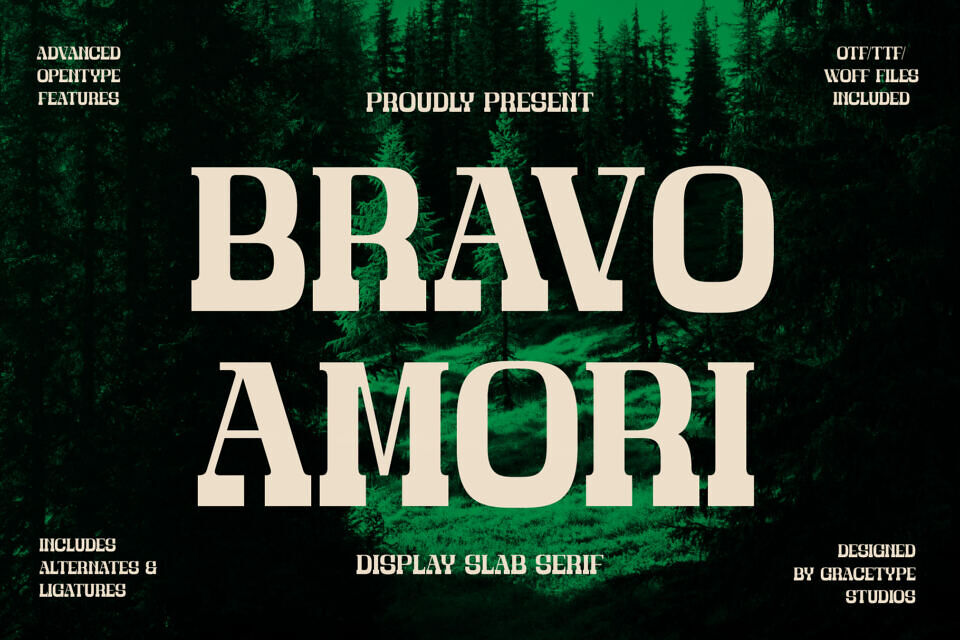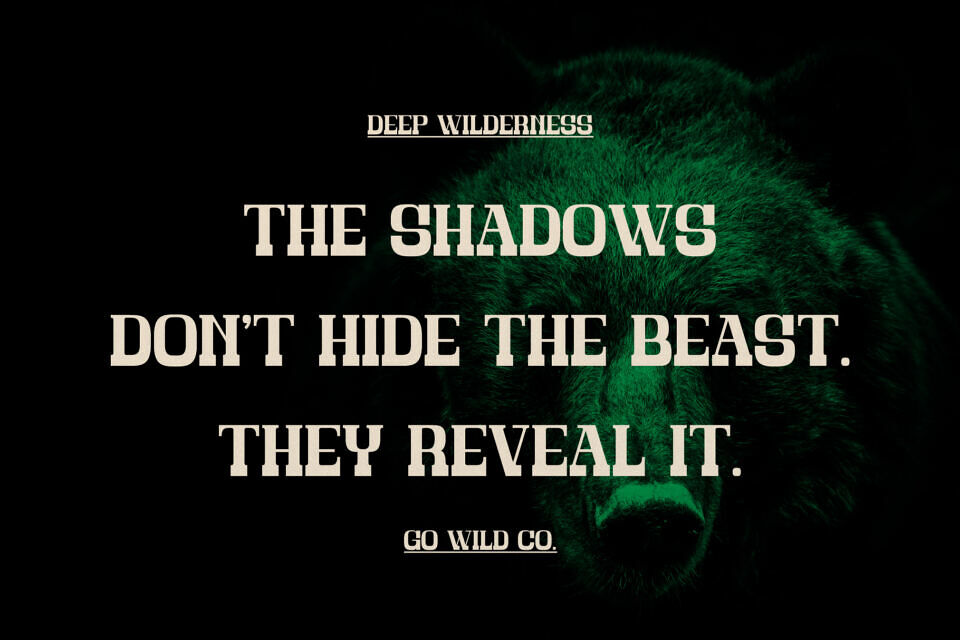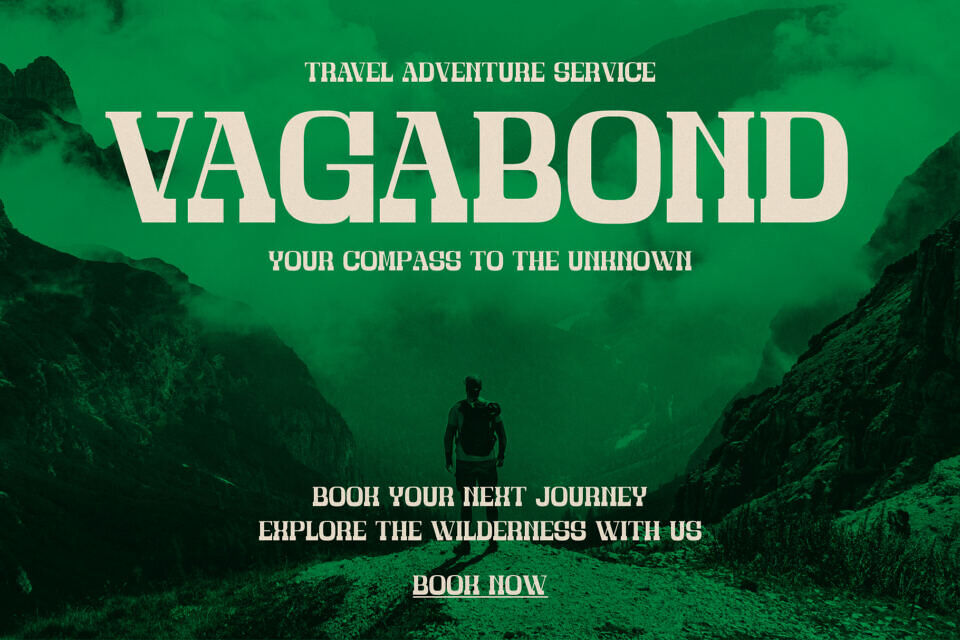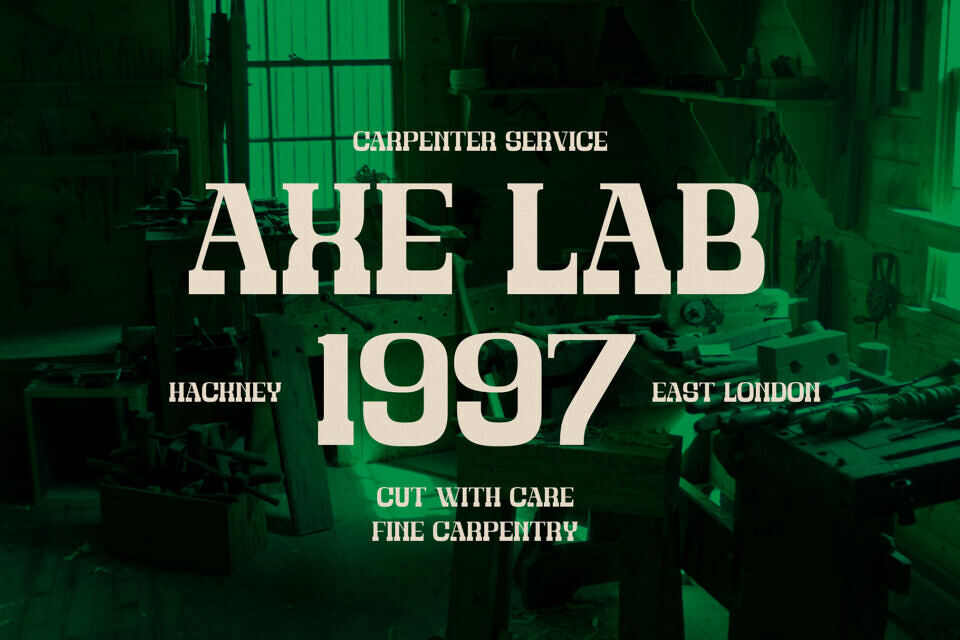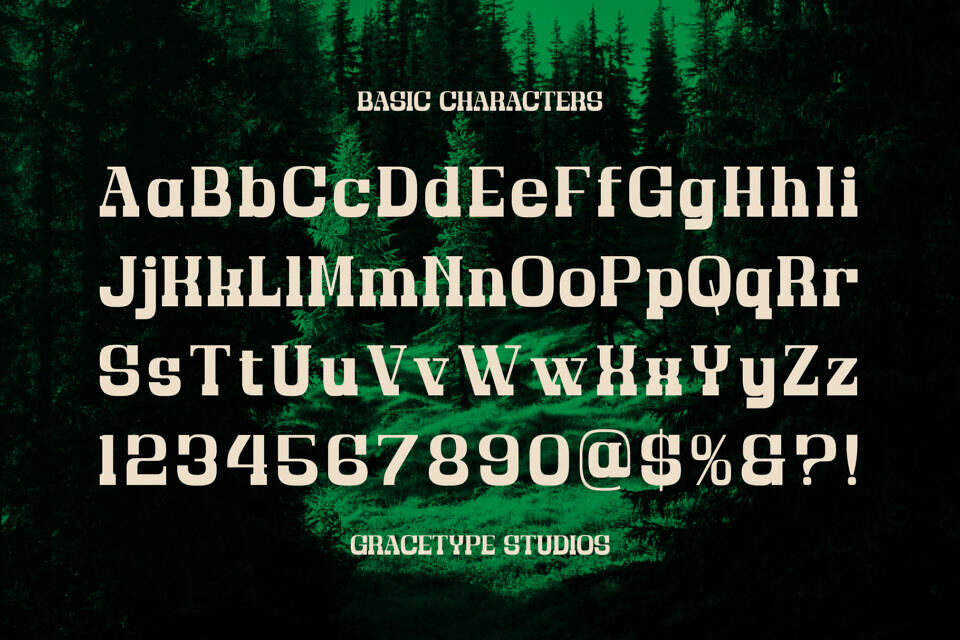
Bravo Amori Font
Create a lasting impression with Bravo Amori, a robust display slab serif font. Its bold uppercase letters feature thick block serifs and sharp transitions, blending vintage and modern styles. Against a dramatic backdrop, it evokes luxury and adventure.
With advanced features, Bravo Amori is ideal for high-end branding, packaging, and publications, making it perfect for craft breweries, outdoor gear, and more. It’s also great for social media headlines, adding a touch of sophistication and elegance.